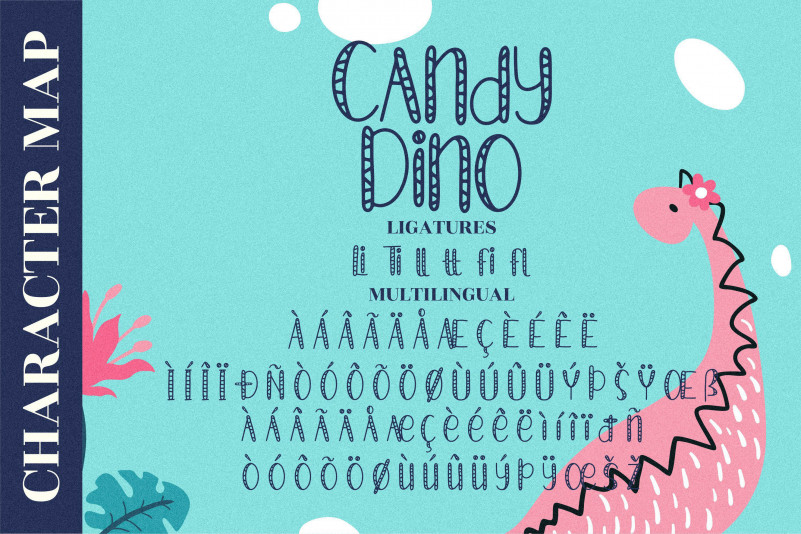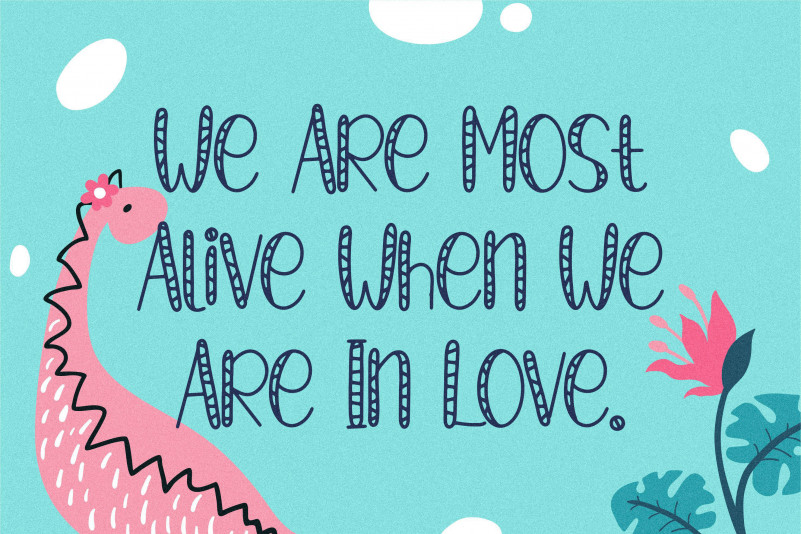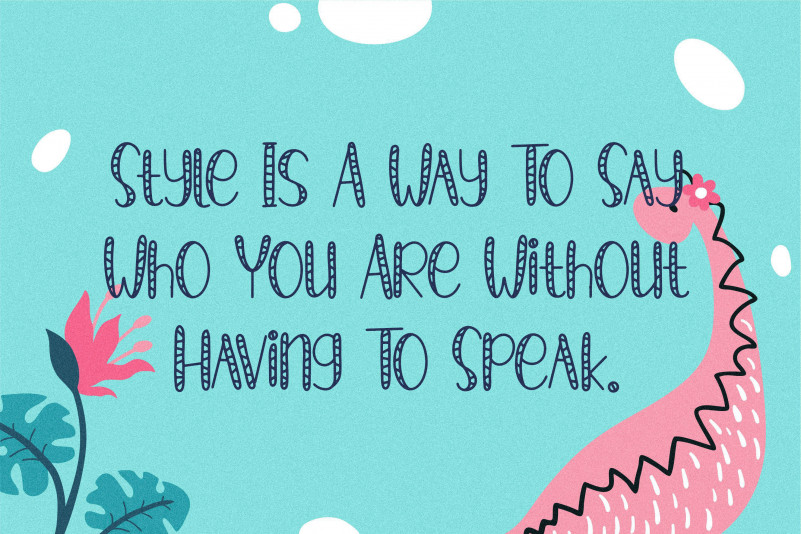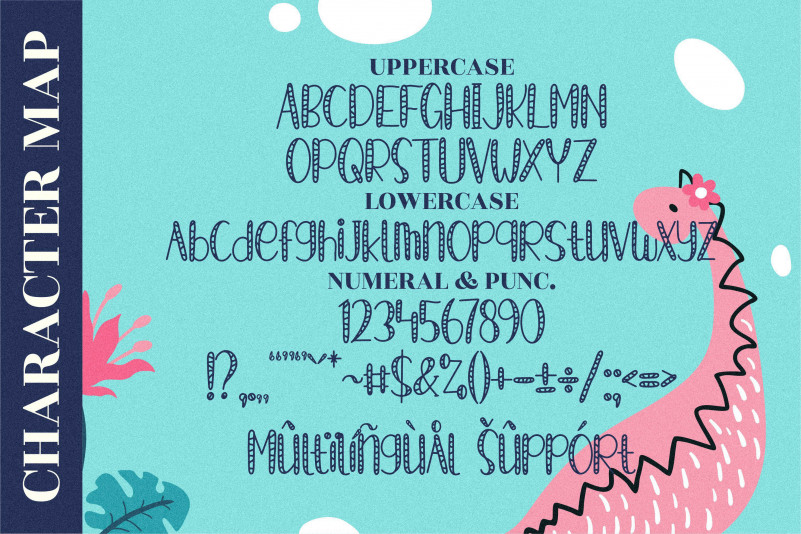
Candy Dino Font
Candy Dino Display Font
This is a cool and friendly display font. Whether you use it for cartoon related designs, children games or just any creation that requires a lovely touch, this font will be an amazing choice.